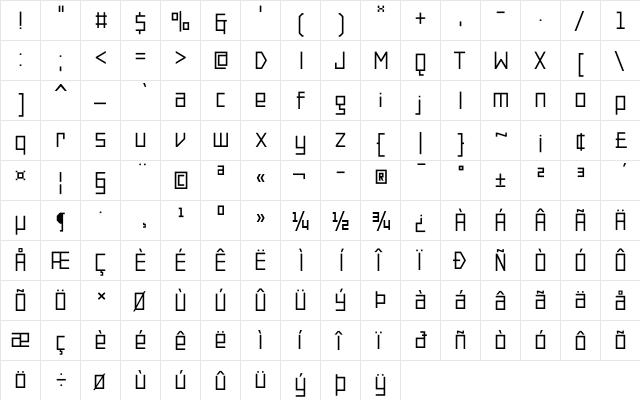
PF Online Two Pro Single
| Foundry | Parachute蠗orldwide |
| Designer | Panos Vassiliou |
Design Context for PF Online Two Pro Typeface
PF Online Two Pro is a composed and adaptable typeface that performs quietly and consistently across a wide range of design contexts.